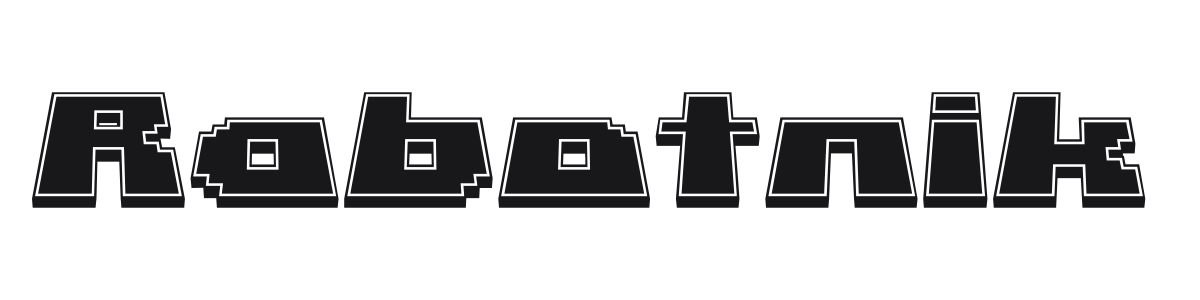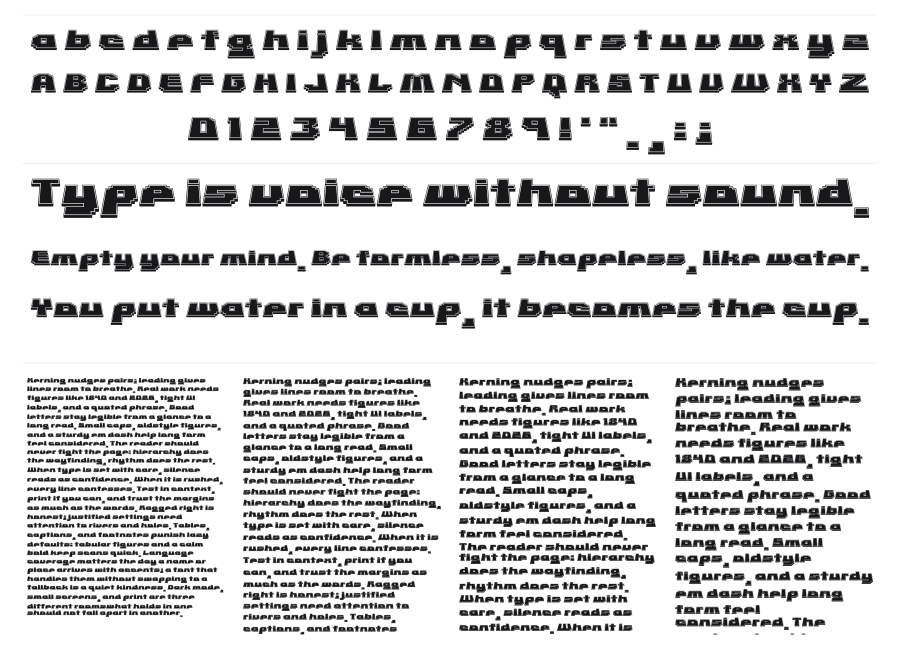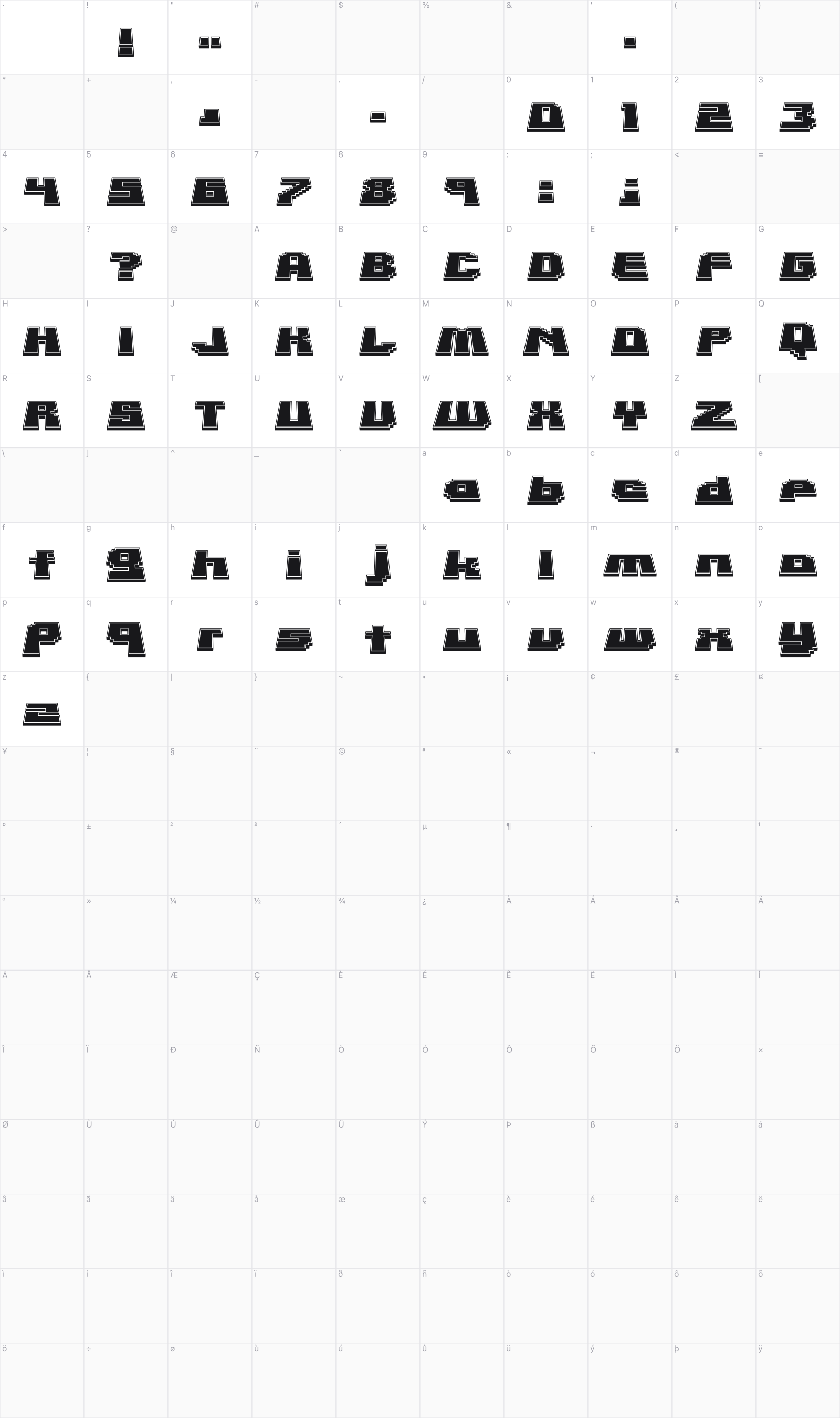
Rabotnik
Rabotnik is a heavy retro display font built on chunky, rounded-square letterforms with a bold stepped-shadow effect that evokes Soviet constructivist graphics and early arcade game lettering. The pixelated edges of the shadow give the font a lo-fi digital quality that sits somewhere between cold-war industrial and 8-bit nostalgia. It commands attention at large sizes and brings immediate personality to posters, game titles, and retro-themed branding.